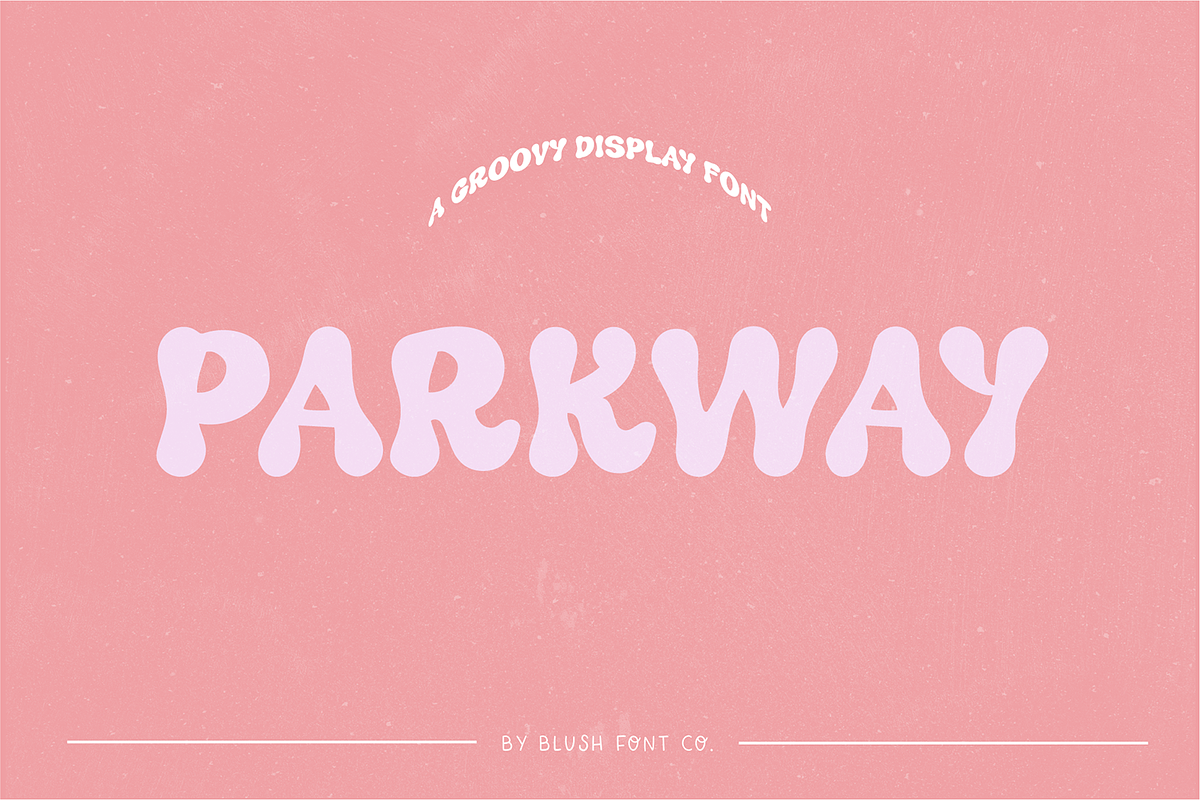
You must purchase this font for commercial use. However, you can download PARKWAY Stylish Retro Font Free Download for testing purposes. Parkway is a stylish retro font that brings a classic 70s vibe into modern design. With its bold letterforms and smooth curves, this font is perfect for creating vintage-inspired logos, posters, branding, social media content, and more.
The unique design of PARKWAY blends old-school charm with a contemporary flair, making it ideal for projects that need a fun, nostalgic touch. Whether you're designing for a retro-themed event, creating an iconic brand identity, or working on creative marketing materials, this font adds personality and flair to your typography.